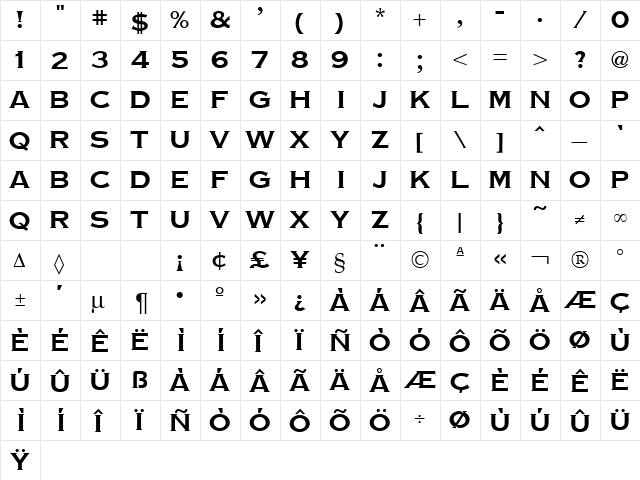
TinPlate Regular
Design Context for TinPlate Typeface
TinPlate is a composed and adaptable typeface that performs quietly and consistently across a wide range of design contexts.